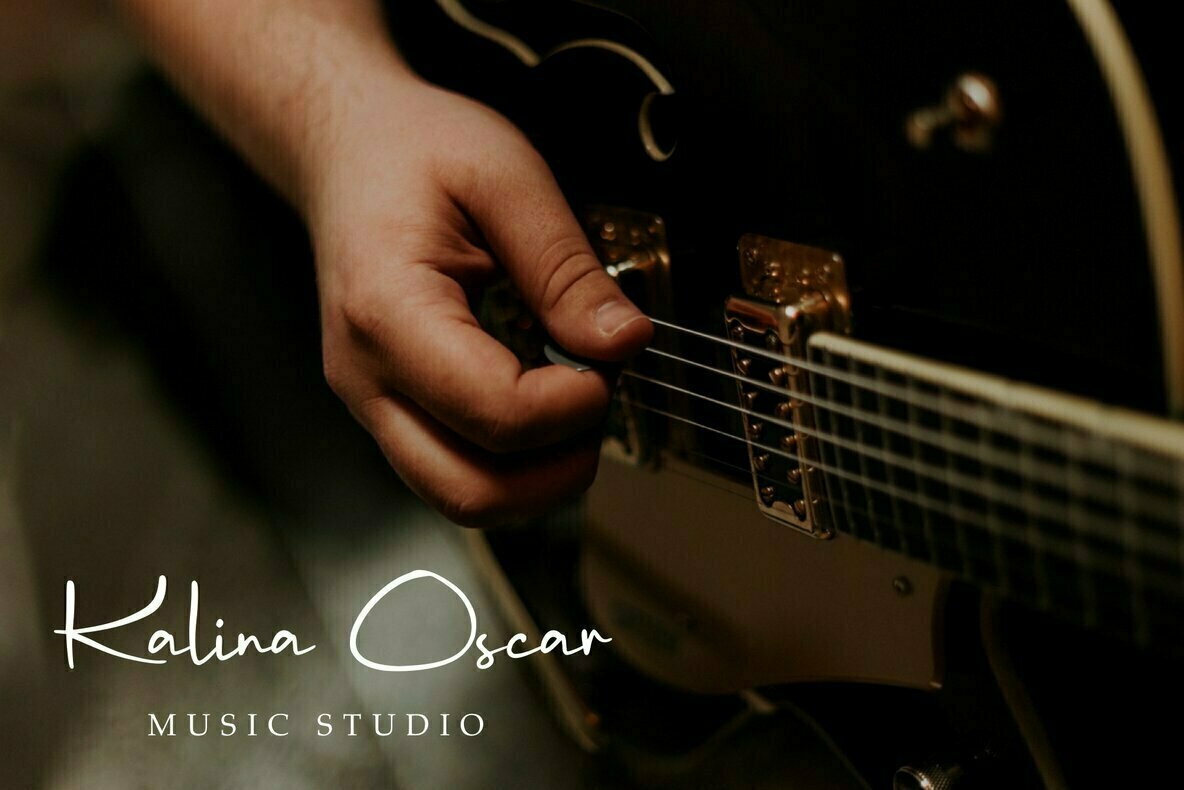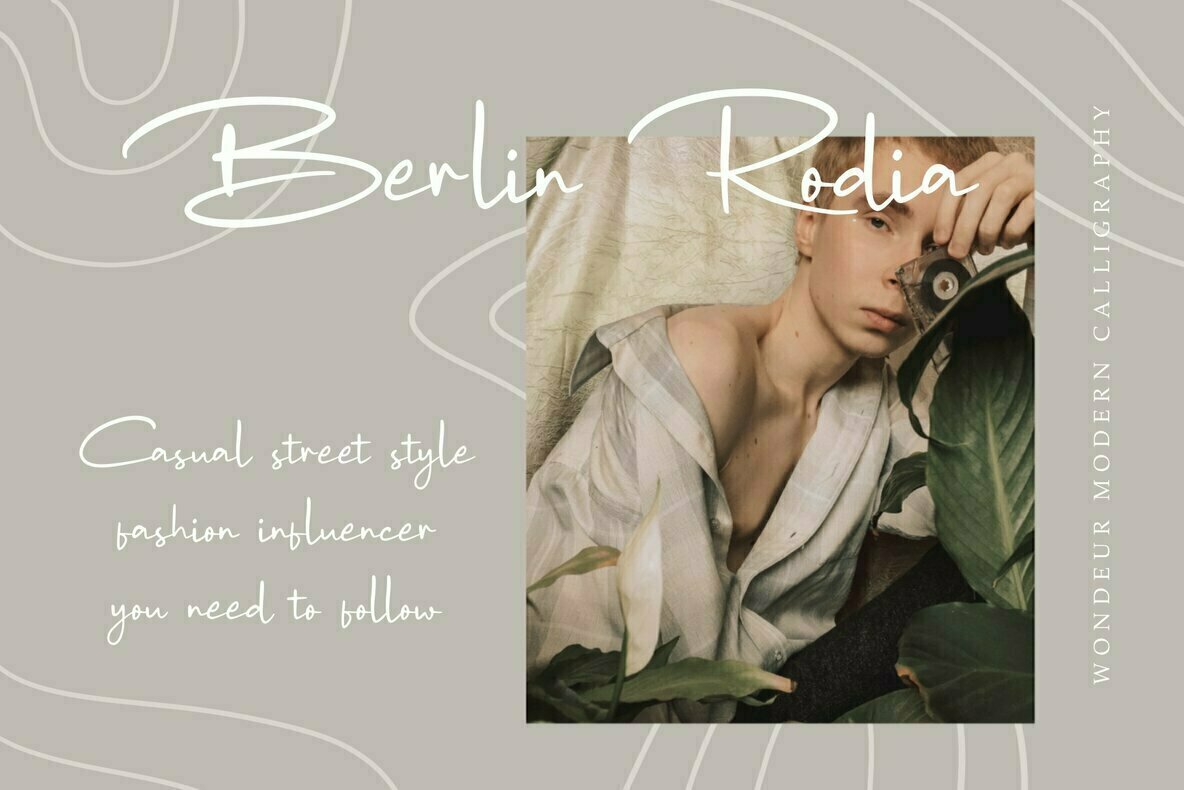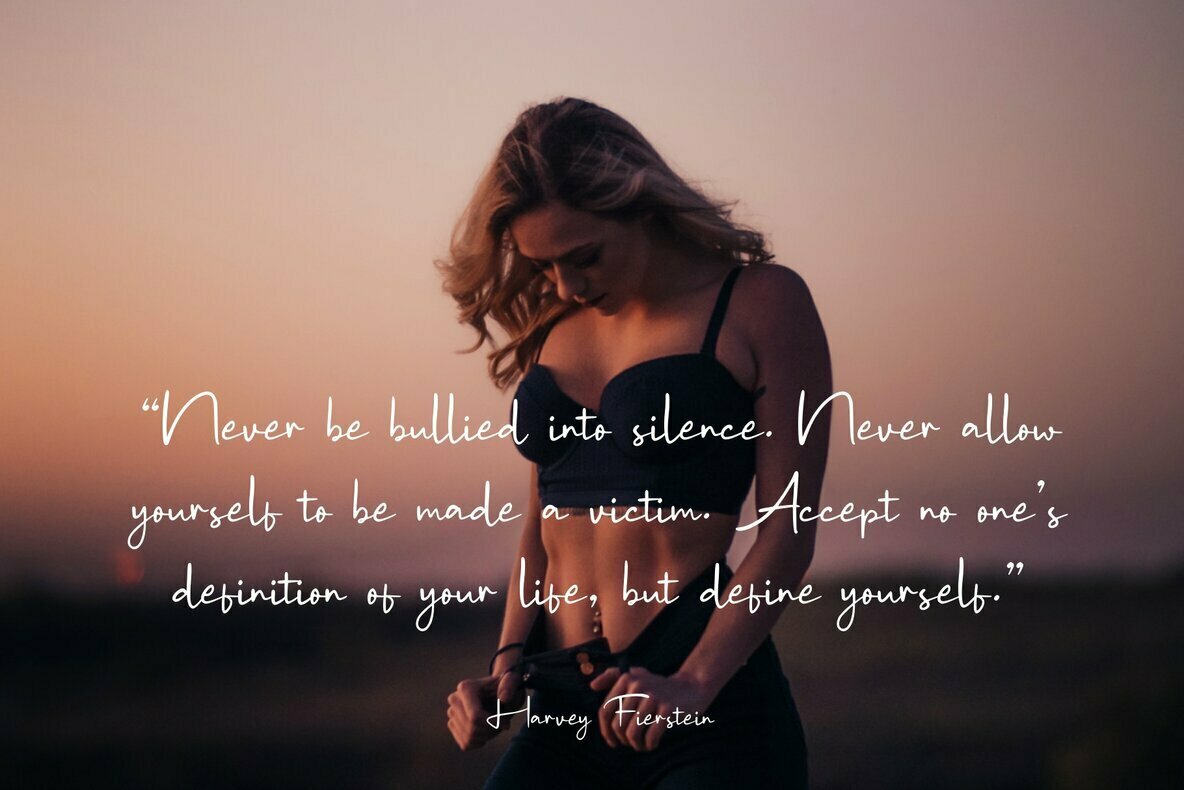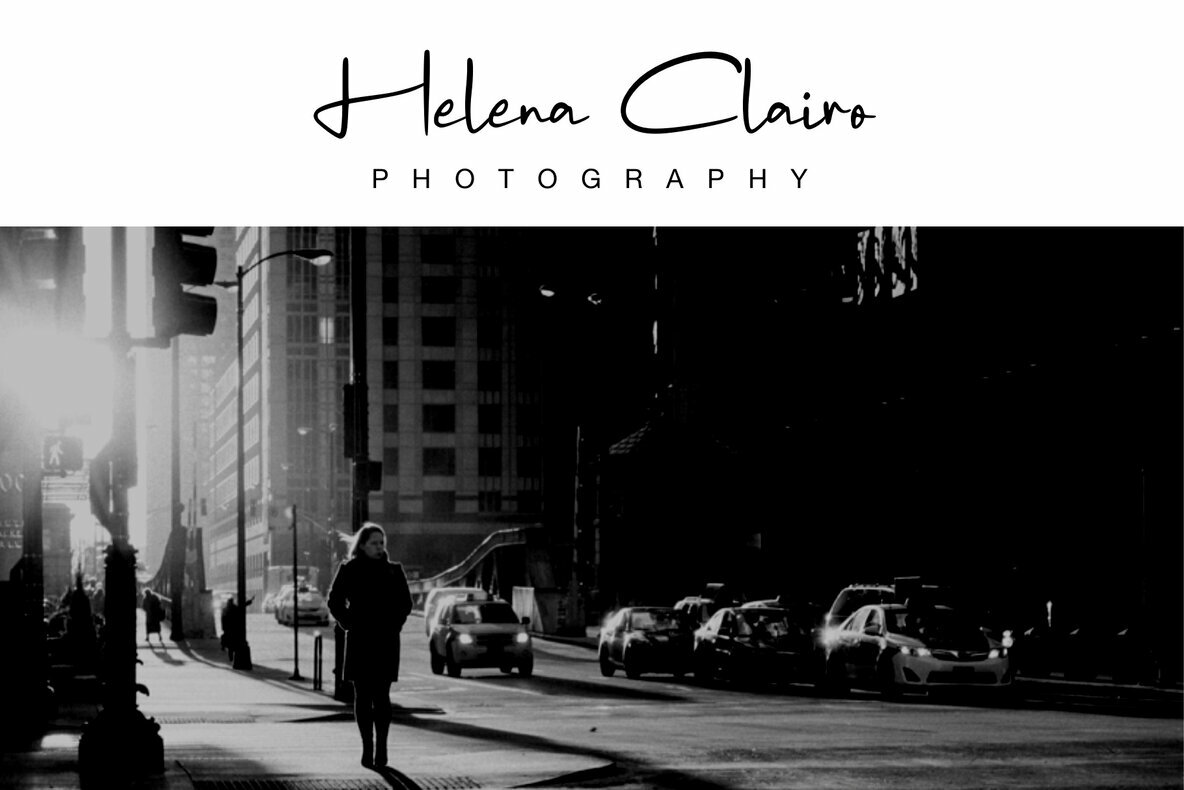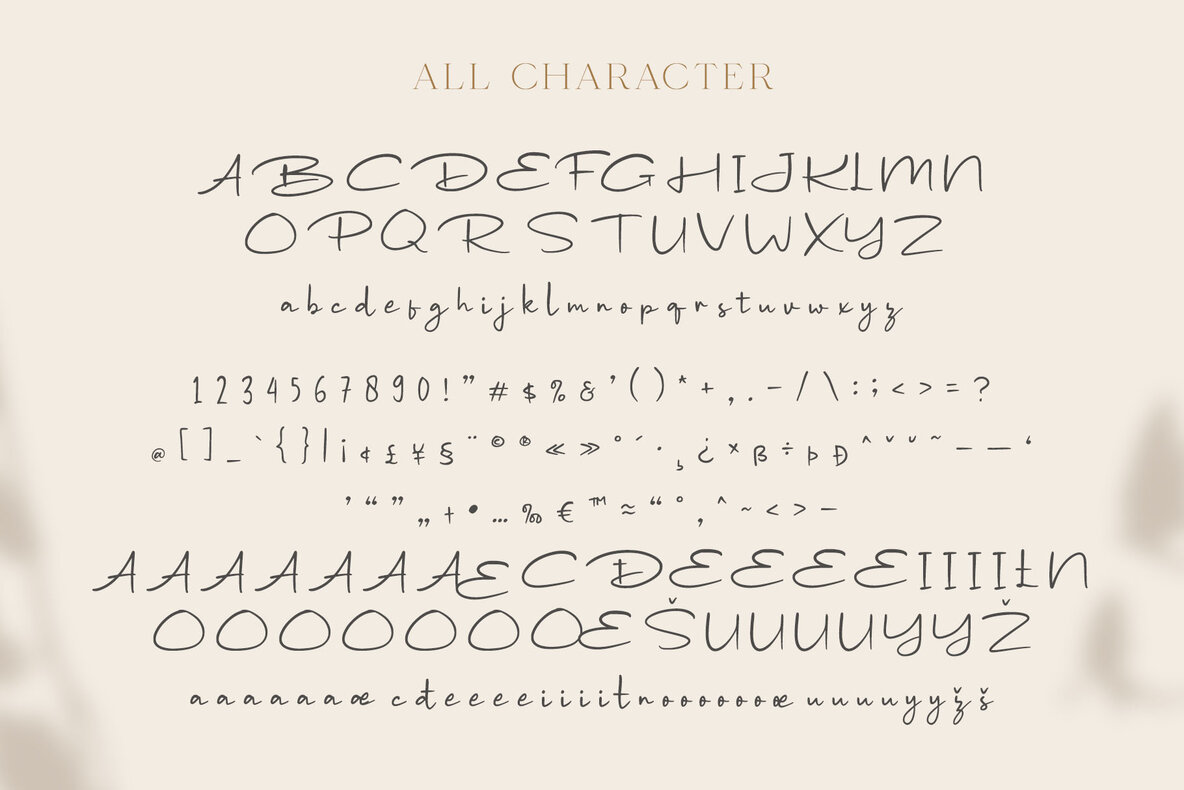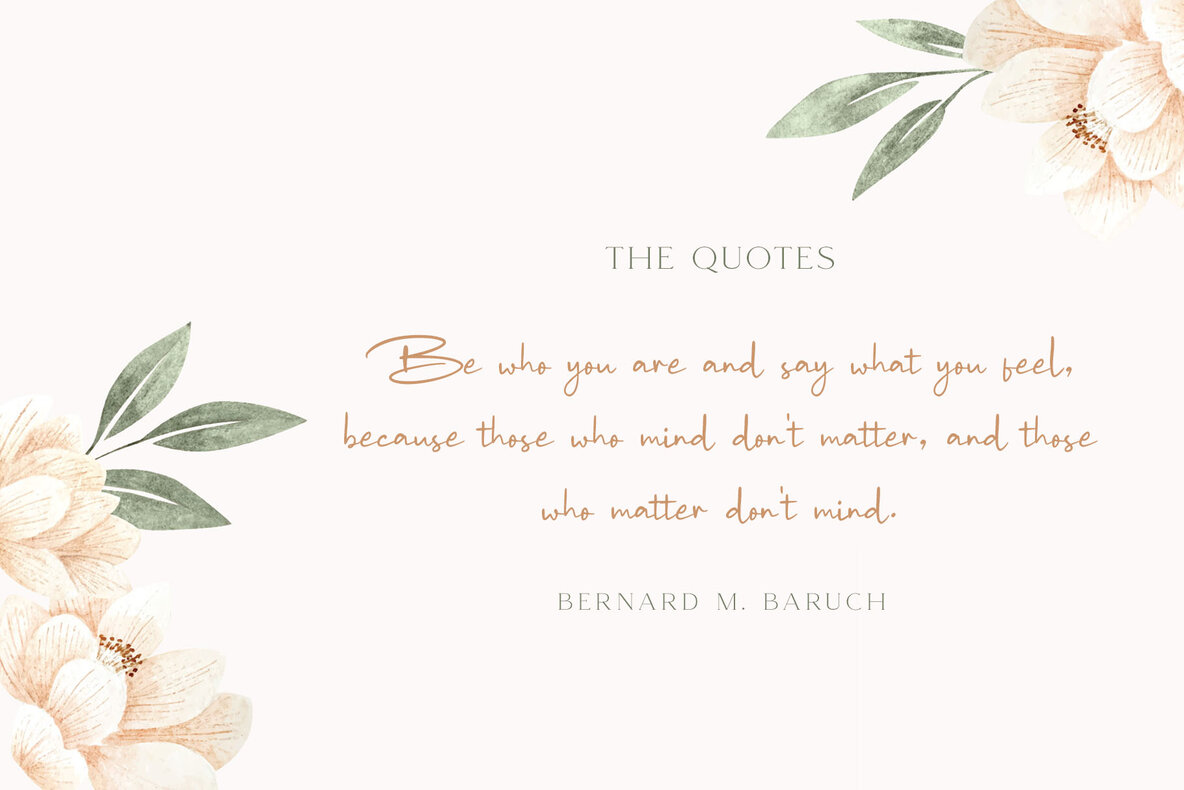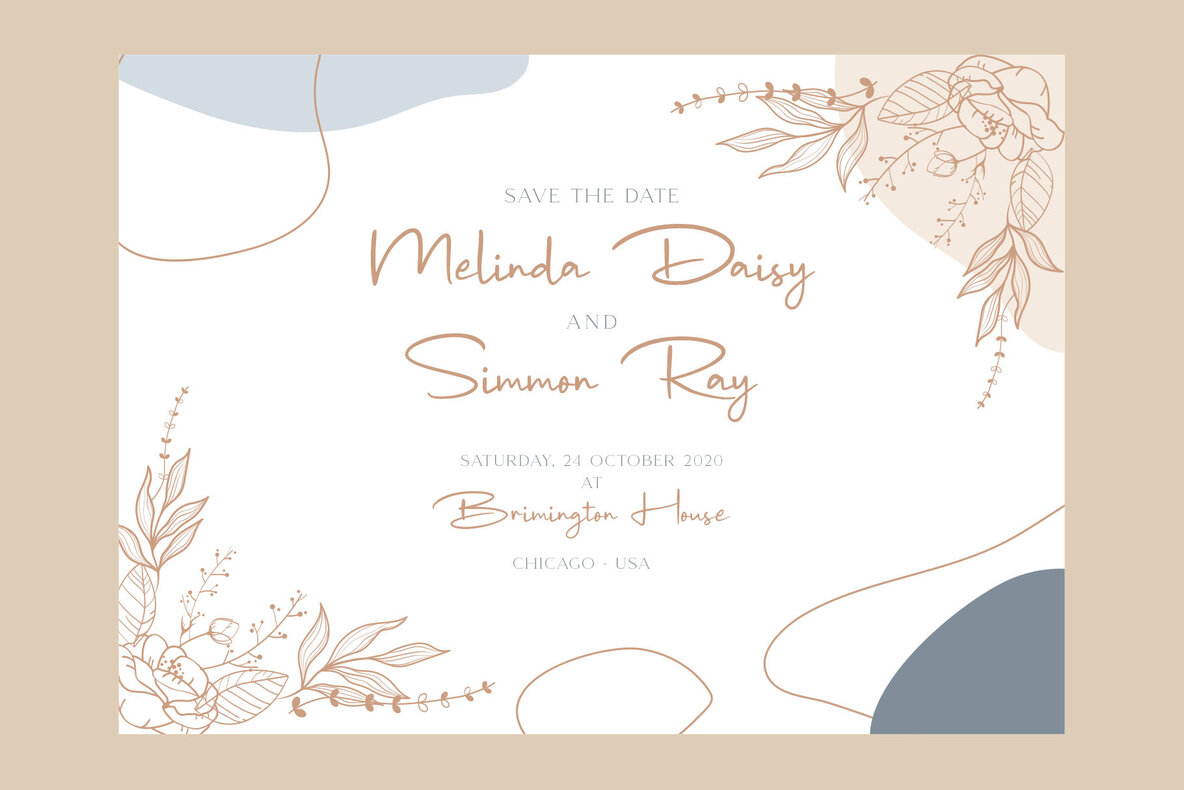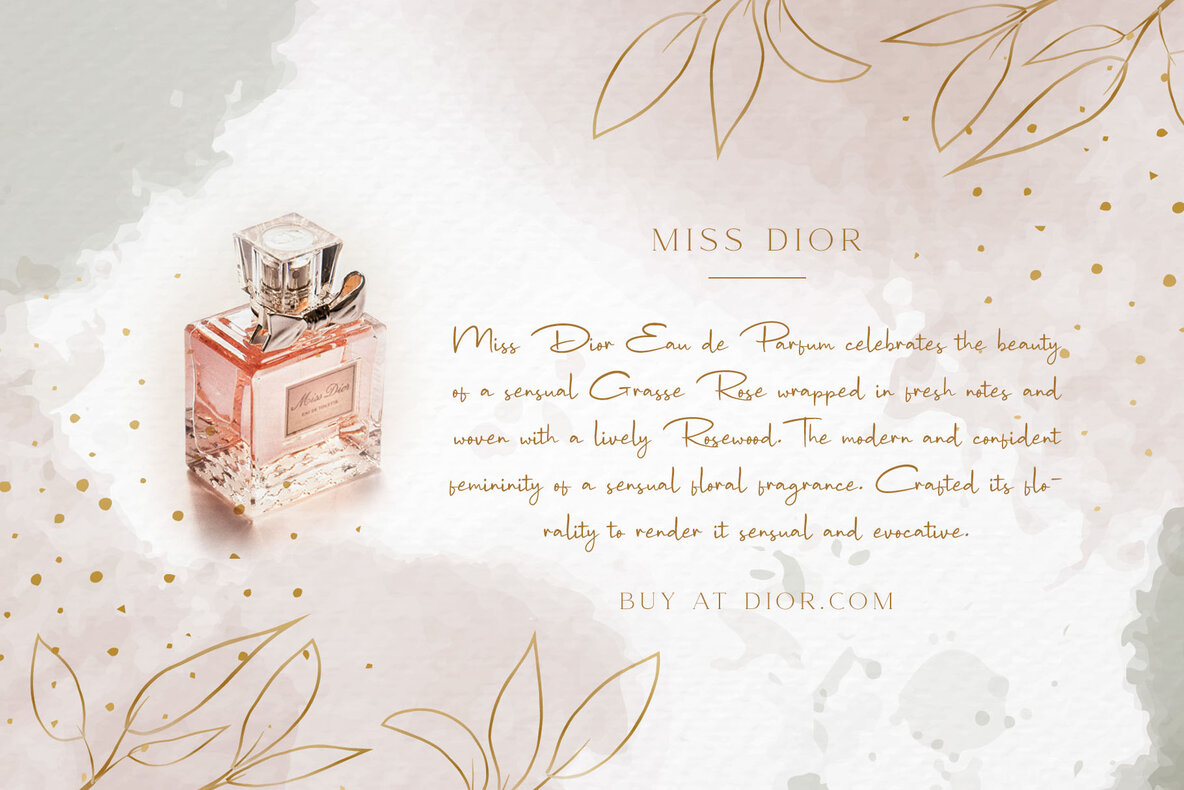
Wondeur Font
Wondeur by Craft Supply Co. presents a modern script font that captures the essence of genuine handwriting. Perfectly tailored for the fashion industry and e-commerce brands, it naturally complements trend blogs, wedding boutiques, and businesses aiming for a refined, upscale appearance. This script font offers versatility for a variety of applications in design and branding. Whether you're creating logos, greeting cards, or engaging posters, Wondeur ensures a chic presentation.Wondeur: Elegant Script for Chic Branding